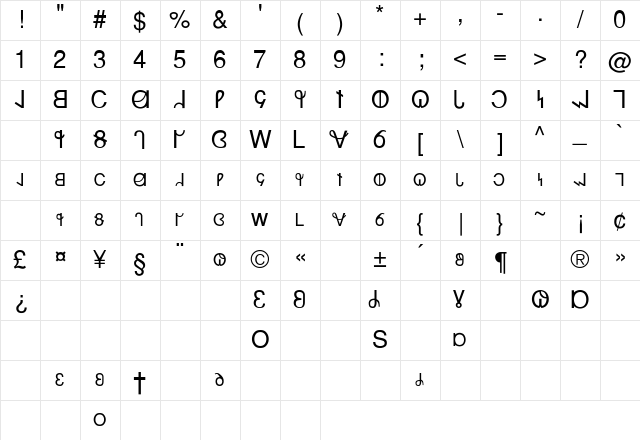
Desert Regular
Desert Family
Design Context for Desert
Desert is a composed and adaptable typeface that performs quietly and consistently across a wide range of design contexts.